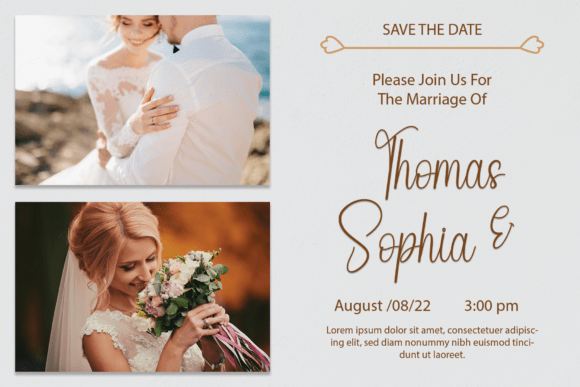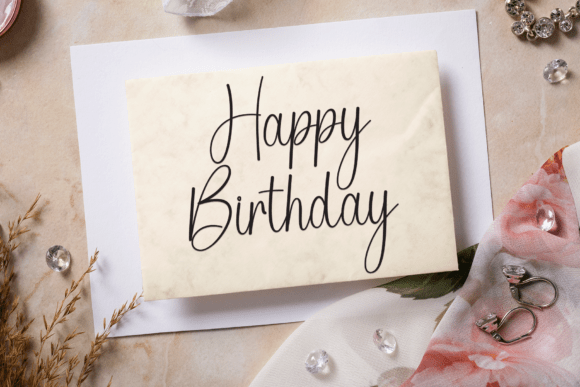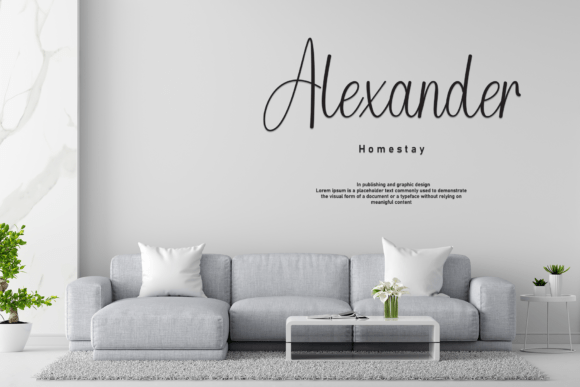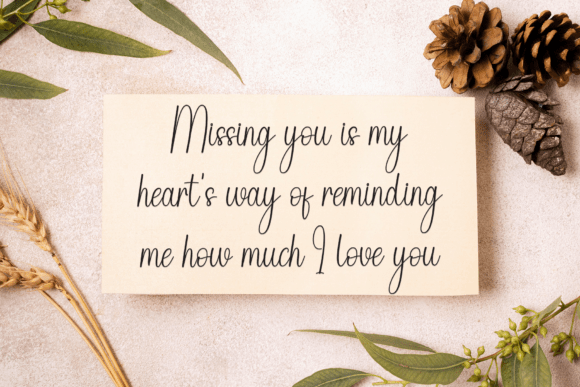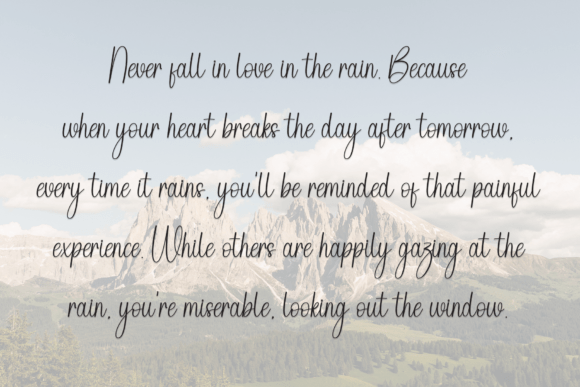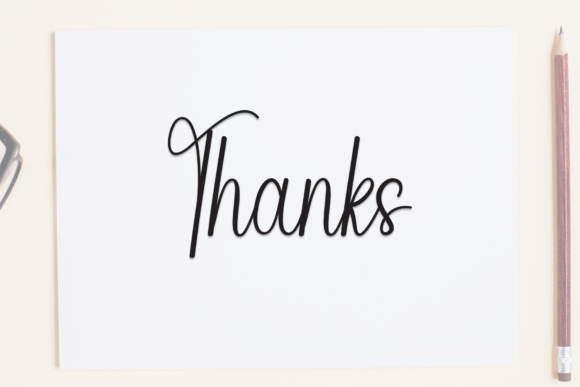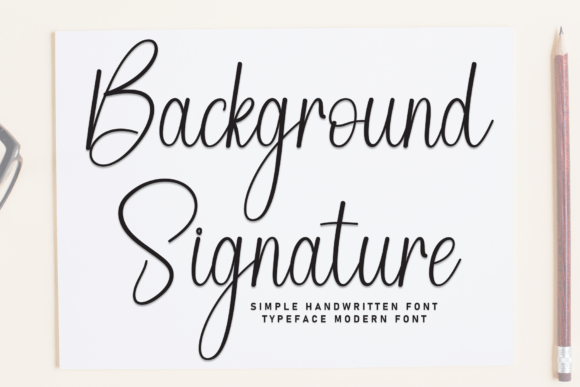
Capture the Intimacy of Handwritten Notes with Background Signature Font
Are you looking for a typeface that can add a personal touch to your designs? Do you want to evoke the feeling of a handwritten note in your digital creations? Look no further than the Background Signature font. This delicate, monoline signature script is the perfect tool for creating sophisticated watermarks, personal branding, and elegant designs that feel truly one-of-a-kind.
The Authenticity of Handwritten Notes
The Background Signature typeface is designed to mimic the natural speed and pressure of a real pen on paper. Unlike more rigid scripts, this font is exceptionally fluid, with long, elegant descenders and breezy connections that give it a unique, organic feel. This authenticity is what sets the Background Signature font apart from other typefaces, making it perfect for designers and crafters who want to add a touch of personality to their work.
Perfect for Photographers, Consultants, and Creatives
The Background Signature font is ideal for photographers who want to add a sophisticated watermark to their images. It’s also perfect for consultants and creatives who want to create a personal brand that feels bespoke and elegant. With this font, you can add a level of intimacy and personality to your designs that makes your brand feel approachable and unique.
Wedding Invitations and Business Cards
One of the many uses of the Background Signature font is as a secondary font on wedding invitations. It adds a romantic, whimsical touch that feels like it was written with love. Similarly, on business cards, it provides a touch of elegance and sophistication that sets you apart from the competition. The font pairs wonderfully with classic serif fonts, providing a soft, organic counterpoint to structured layouts.
Digital Signatures and Logos
In today’s digital age, a digital signature is just as important as a physical one. The Background Signature font is perfect for creating a digital signature for emails or documents. It’s also ideal for crafting a chic logo for a boutique or small business. With this font, you can add a level of personality to your brand that makes it feel more approachable and human.
Why Choose Background Signature Font?
So why choose the Background Signature font over other typefaces? Here are just a few reasons:
- Authenticity: The Background Signature font is designed to mimic the natural speed and pressure of a real pen on paper, giving it an authentic, organic feel.
- Fluidity: The font is exceptionally fluid, with long, elegant descenders and breezy connections that make it feel truly one-of-a-kind.
- Versatility: The Background Signature font is perfect for a wide range of design applications, from watermarks and personal branding to wedding invitations and business cards.
- Elegance: The font adds a level of elegance and sophistication to any design, making it perfect for designers and crafters who want to create high-end designs.
Tips for Using Background Signature Font
Here are a few tips for using the Background Signature font in your designs:
- Pair with classic serif fonts: The Background Signature font pairs wonderfully with classic serif fonts, providing a soft, organic counterpoint to structured layouts.
- Use as a secondary font: Use the Background Signature font as a secondary font to add a touch of personality to your designs.
- Experiment with colors: The Background Signature font looks great in a variety of colors, so don’t be afraid to experiment and find the perfect hue for your design.
In conclusion, the Background Signature font is a delicate, monoline signature script that captures the intimacy of handwritten notes. With its authentic, fluid, and elegant design, it’s perfect for designers and crafters who want to add a personal touch to their work. Whether you’re creating a sophisticated watermark, a personal brand, or a chic logo, the Background Signature font is the ultimate tool for adding a level of personality and elegance to your designs.